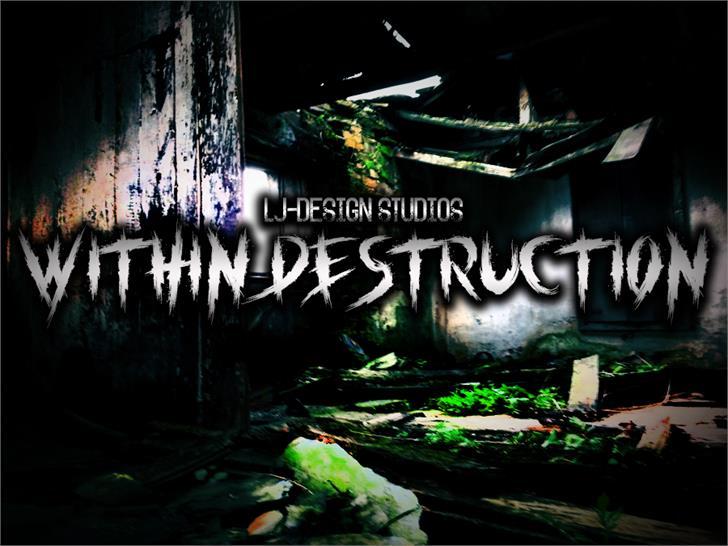
Within Destruction Font is a classic from LJ Design Studios Within was one of our sources created half of our progress in 2016 to be exact.
It is a very aggressive style, a brush of very old and destroyed brushes were the key to digitize this project that bears the name of a title of honor to the name of a song. We have a typographic style inspired by the music of the metalcore made by As I Lay Dying, in Brutal style as to create logos of bands or posters well overloaded with this energy.